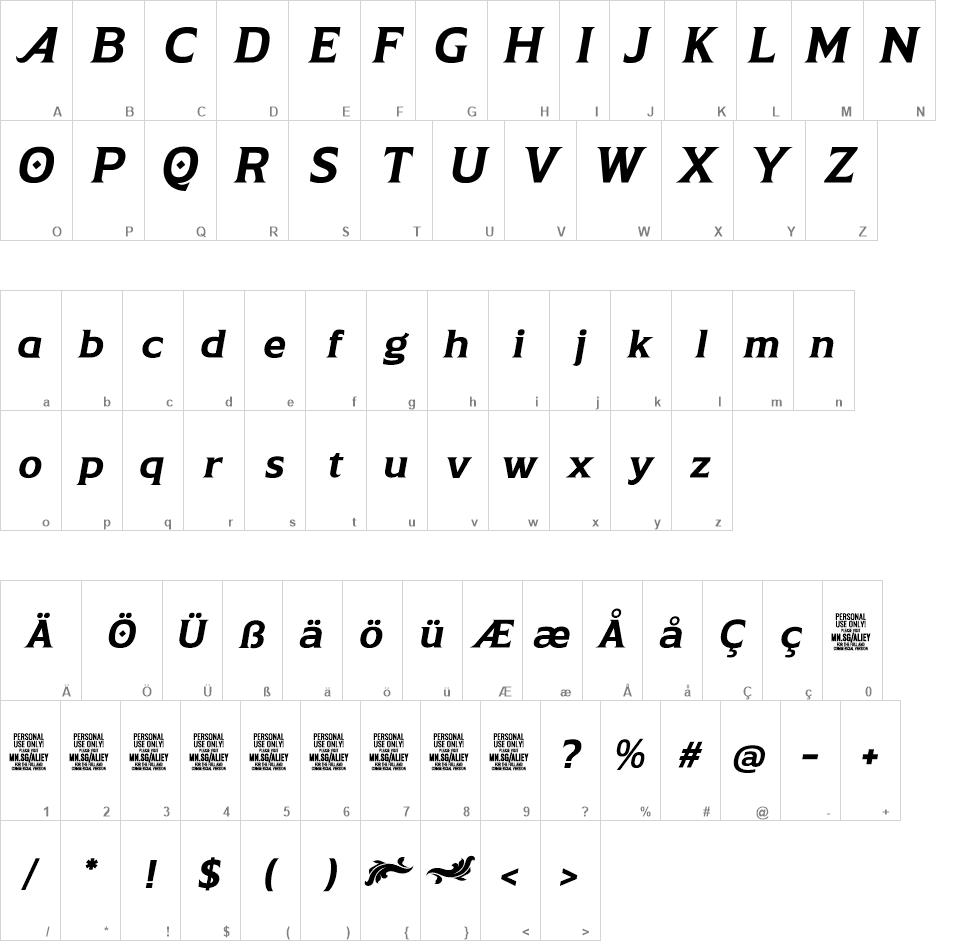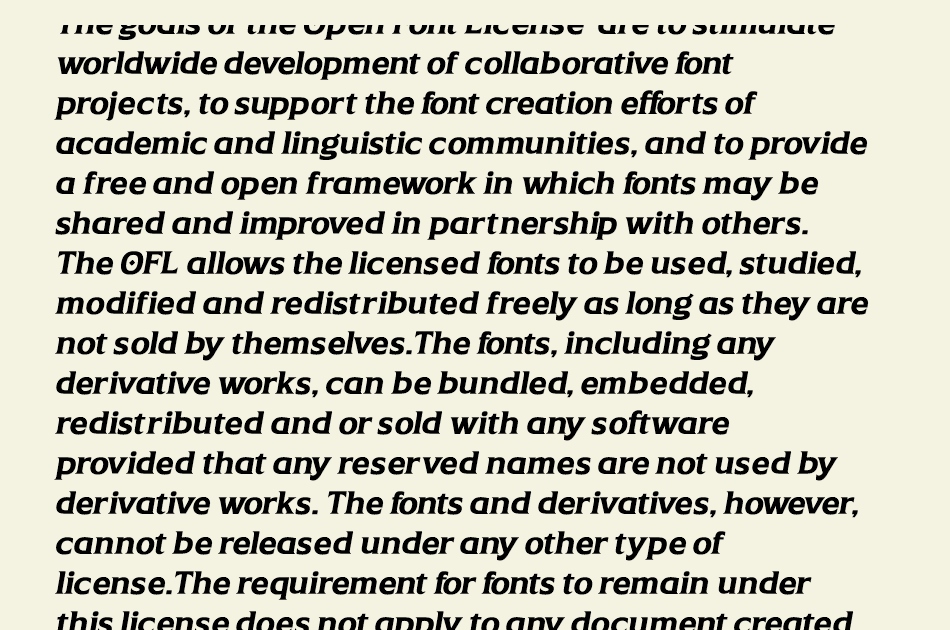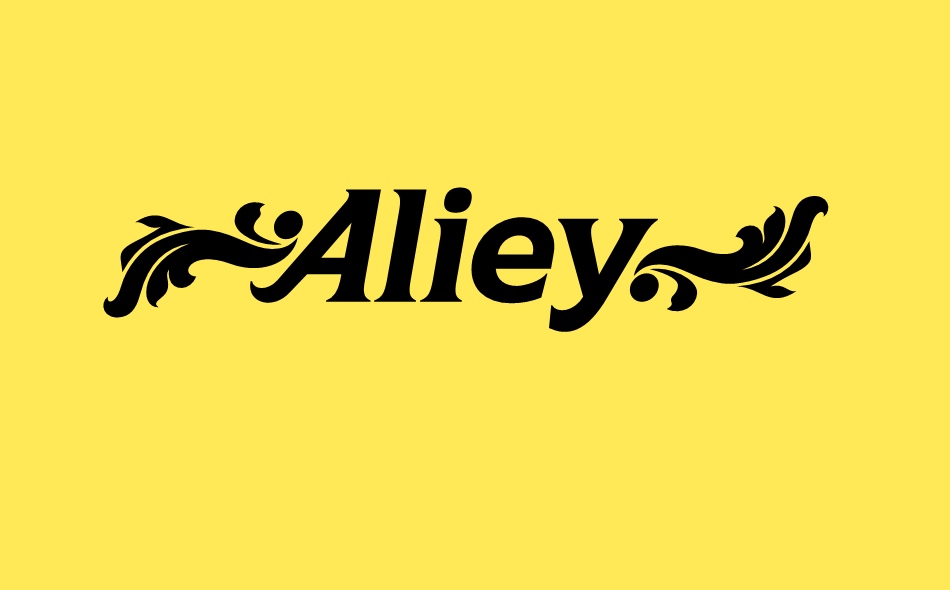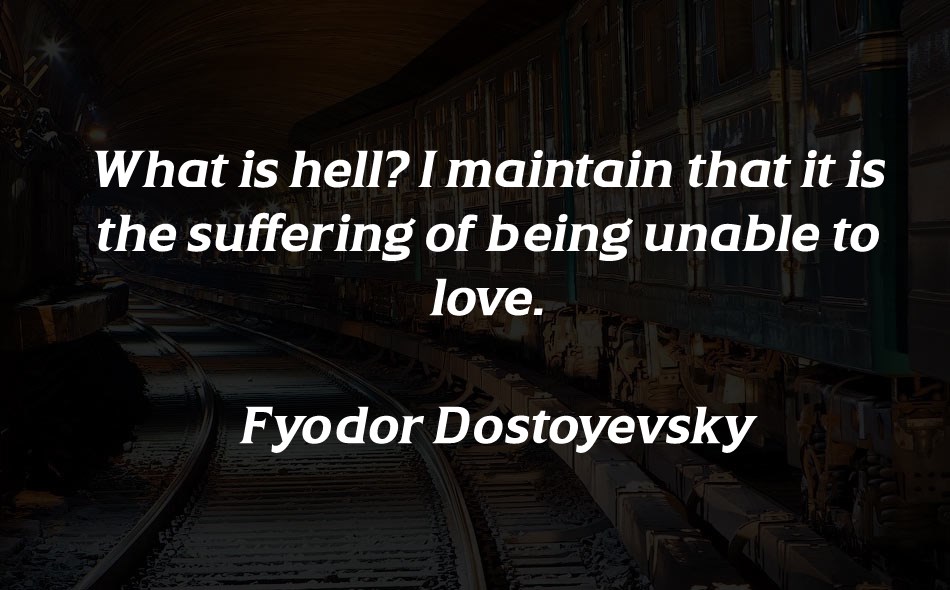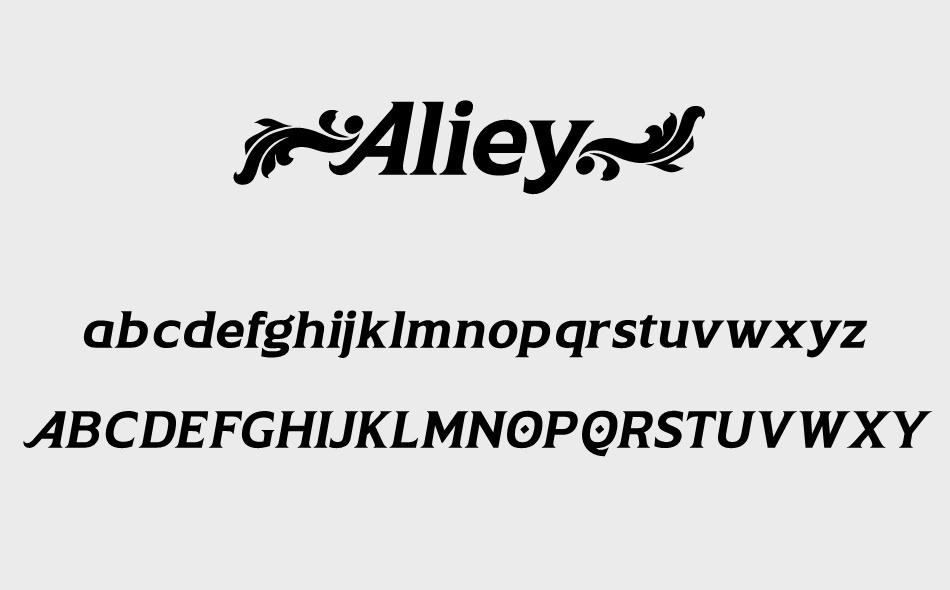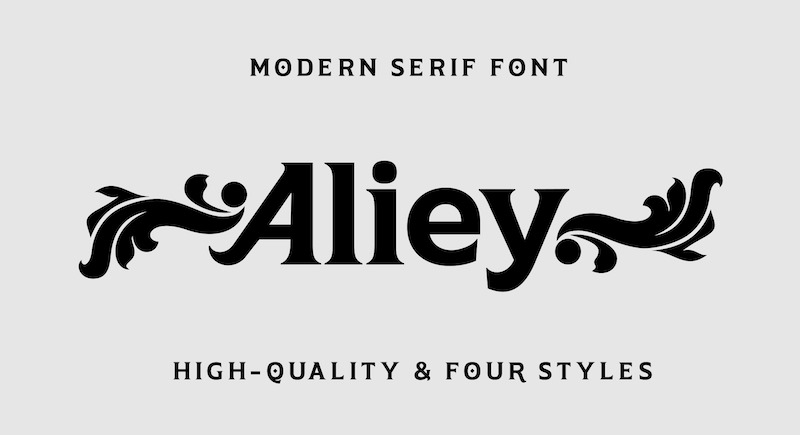
Aliey font
Use [ ] and { } to create decorative elements.
Example: {Victorian}
Aliey font
Aliey is a classy, bold victorian typeface that looks incredible in both large and small settings.
Best used as a display for headings and logos, Aliey's straight lines, tense curves and sharp edges give any project an extra touch of class.
This vintage serif font is stable and confident, and bring the thoughts to an age of gold and marble.
The Aliey family consists of four styles: The two weights Regular and Bold -- and each one as Italic.
The font is built with advanced OpenType functionality and has a guaranteed top-notch quality, containing stylistic and contextual alternates, ligatures and more features; all to give you full control and customizability. It has extensive lingual support, covering all Latin-based languages, from North Europe to South Africa, from America to South-East Asia. It contains all characters and symbols you'll ever need, including all punctuation and numbers.